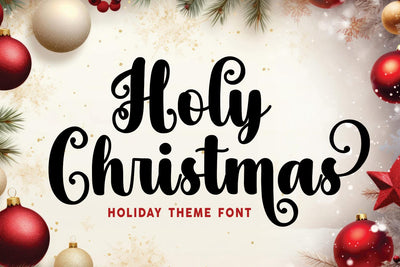
Holy Christmas
Introducing the Holy Christmas – a delightful and endearing typeface that embodies the spirit of Christmas with a charming handwritten script. This font is a perfect choice to infuse your designs with the festive magic and heartwarming joy of the holiday season.
The Holy Christmas Font is thoughtfully crafted to capture the essence of a cozy Christmas morning, with its gentle, slightly uneven strokes and elegantly flowing curves. Its handwritten style adds a personal and inviting touch to your projects as if each letter were penned with love on a snowy December day.
The characters of this font are adorned with playful accents inspired by the Christmas season – tiny ornaments decorate the 'i's, while holiday wreaths encircle the 'o's. These delightful touches make every letter feel like a special gift, creating a sense of wonder and excitement. The Holy Christmas Font beautifully encapsulates the sentiment of togetherness and celebration that defines this cherished holiday, making it the perfect choice for conveying your warmest Christmas greetings and spreading the joy of the season.